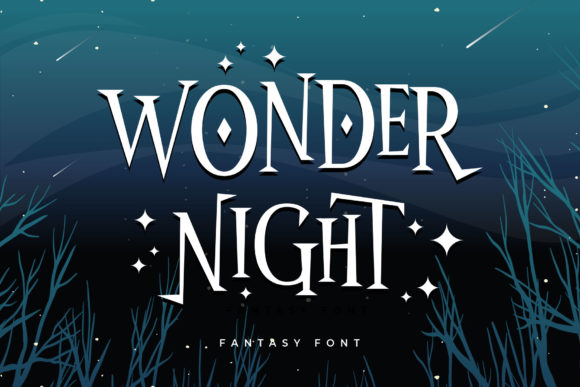
Introducing Wonder Night Font, the perfect serif font that will transport you to a whimsical fairytale land. Created by the talented Arterfak Project, this font is a magical blend of elegance and mystery. With its enchanting appeal, Wonder Night is guaranteed to captivate and mesmerize anyone who sets eyes on it.
Are you in search of the ultimate font to elevate your fashion blog? Look no further! Wonder Night is the answer to your prayers. Its unique and stylish design will instantly add a touch of sophistication to your blog, making it the go-to choice for fashion enthusiasts worldwide. Let your creativity flow and watch your blog soar to new heights with Wonder Night.
As the air turns crisp and Halloween approaches, Wonder Night emerges as the perfect companion for all your spooky endeavors. Whether you're designing invitations for a themed party or creating eerie posters, this font sets the mood like no other. Its hauntingly beautiful serifs evoke a sense of mystery, giving your designs an edge that will leave everyone spellbound.
Not only does Wonder Night possess an otherworldly charm, but it also offers unparalleled versatility. Its wide range of weights and styles allows you to experiment and create unique combinations that suit your every need. From bold headlines to delicate captions, this font effortlessly adapts to any design element, ensuring a cohesive and visually stunning result.
But Wonder Night is not just a font; it's a magical journey waiting to unfold. Imagine a moonlit forest, where fairies dance among the trees and whispers of enchantment fill the air. That's the feeling Wonder Night brings to your designs – a sense of wonder and awe that transports your audience to a realm of imagination.